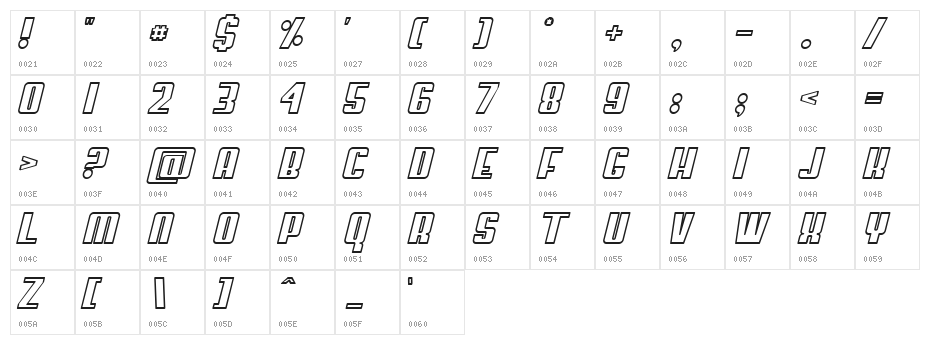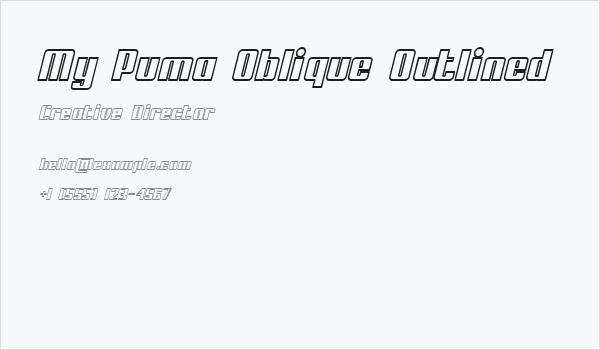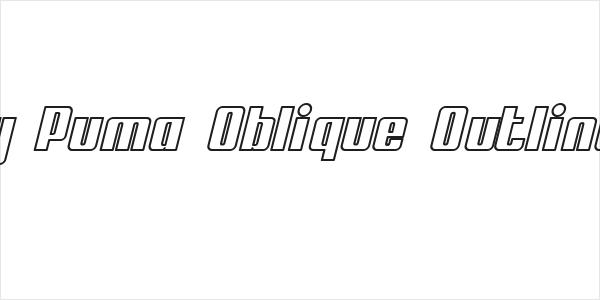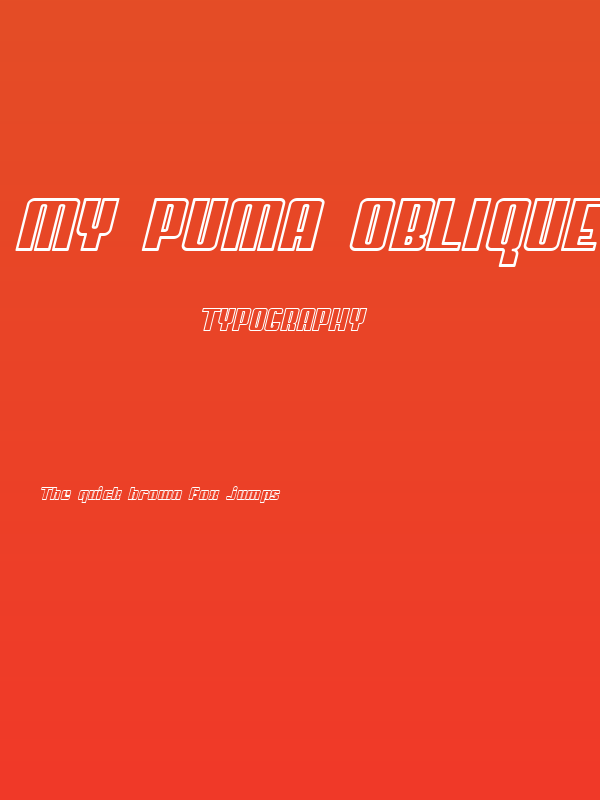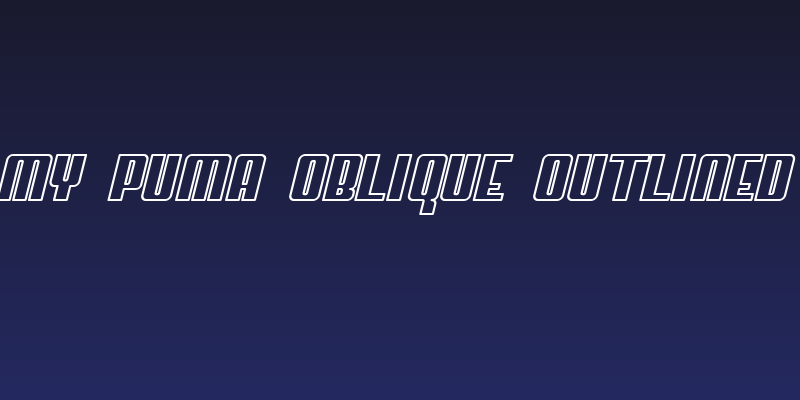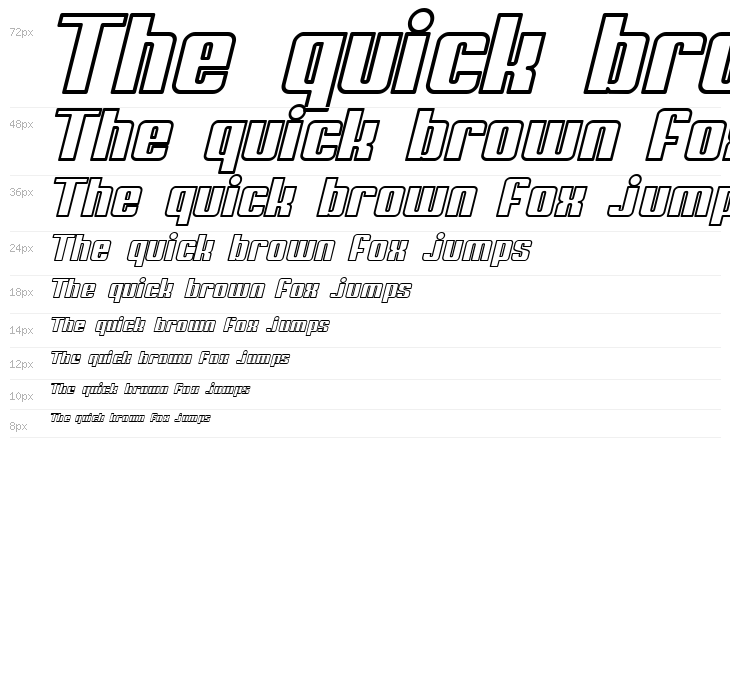
My Puma Oblique Outlined Font
My Puma Oblique Outlined Description
This font features a bold and dynamic oblique style with outlined characters that give it a modern and sporty appearance. The uppercase and lowercase letters are designed with a consistent slant, enhancing the sense of motion and energy. The numerals and special characters maintain the same stylistic approach, ensuring uniformity across all glyphs. The outlined nature of the font adds a layer of depth, making it suitable for eye-catching designs. Its geometric structure and clean lines contribute to its contemporary feel, making it ideal for projects that require a strong visual impact.